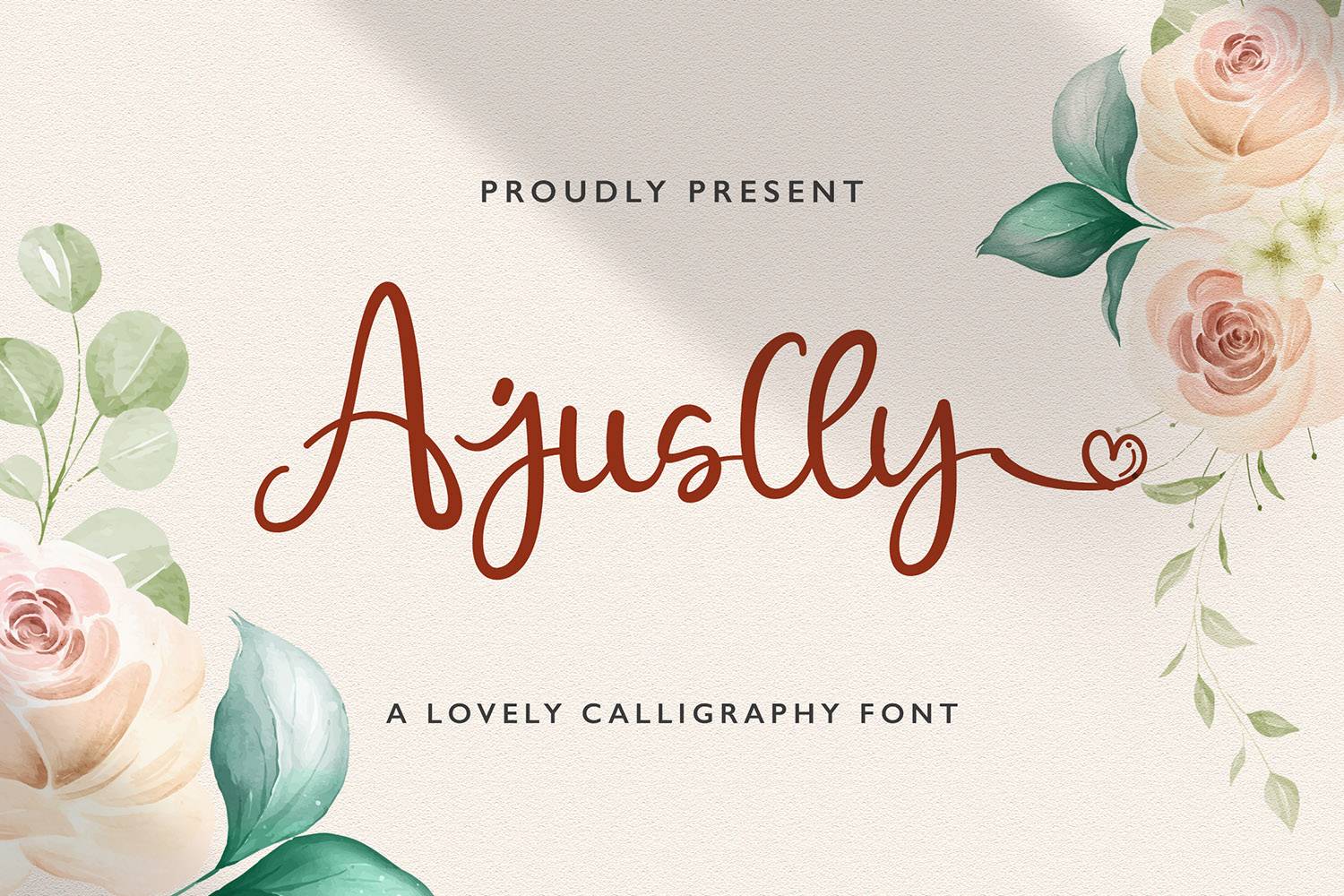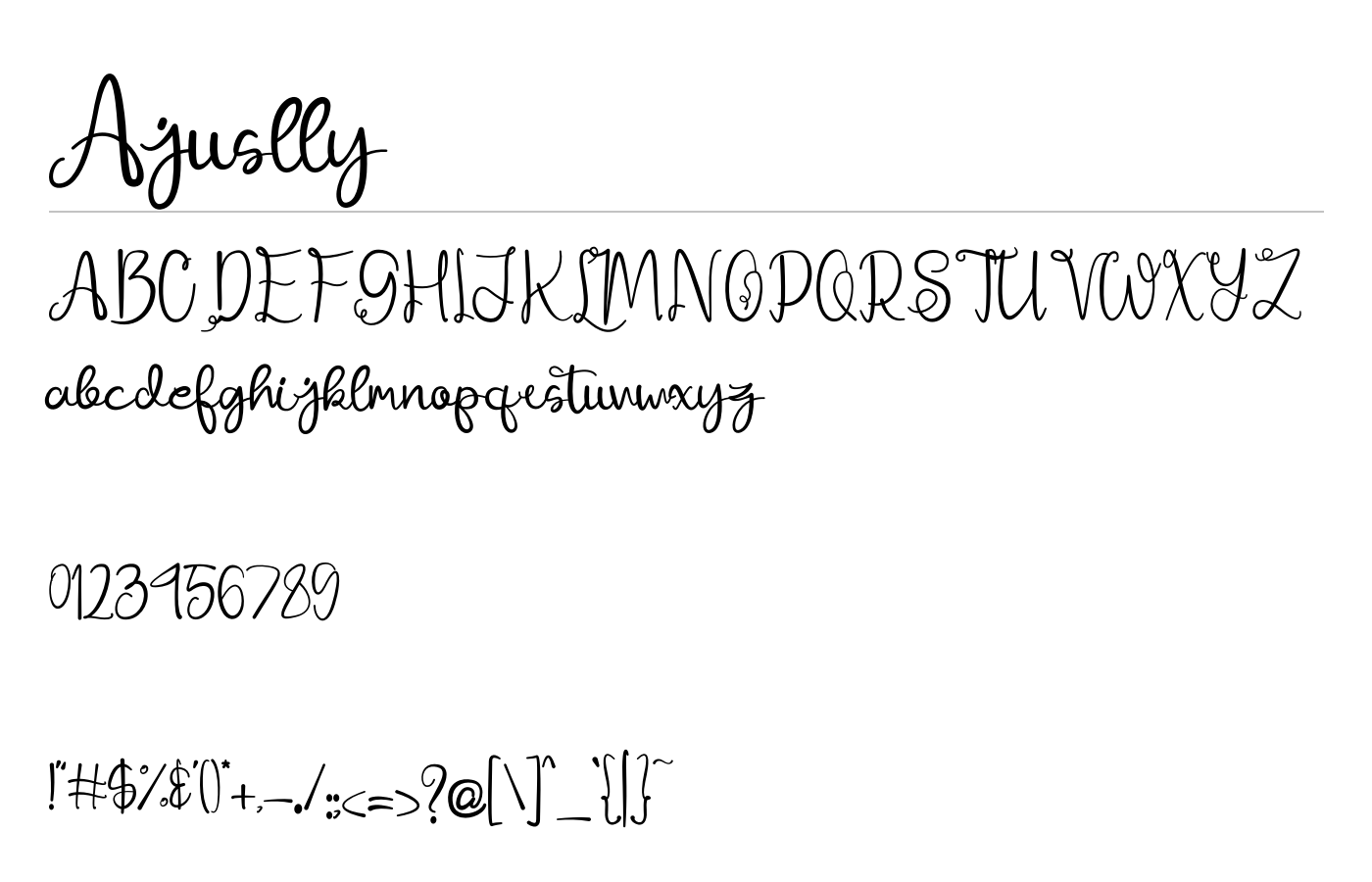
Ajuslly is a playful and elegant handwritten script font with a light, airy feel and charming curls on uppercase letters. Its thin, flowing strokes and casual style make it perfect for creative projects like greeting cards, invitations, and branding that wants a personal, approachable touch. This font works especially well for designs that need a friendly, whimsical personality while maintaining clear readability.
Ajuslly Font
About Ajuslly Font
| Font family | Ajuslly Font |